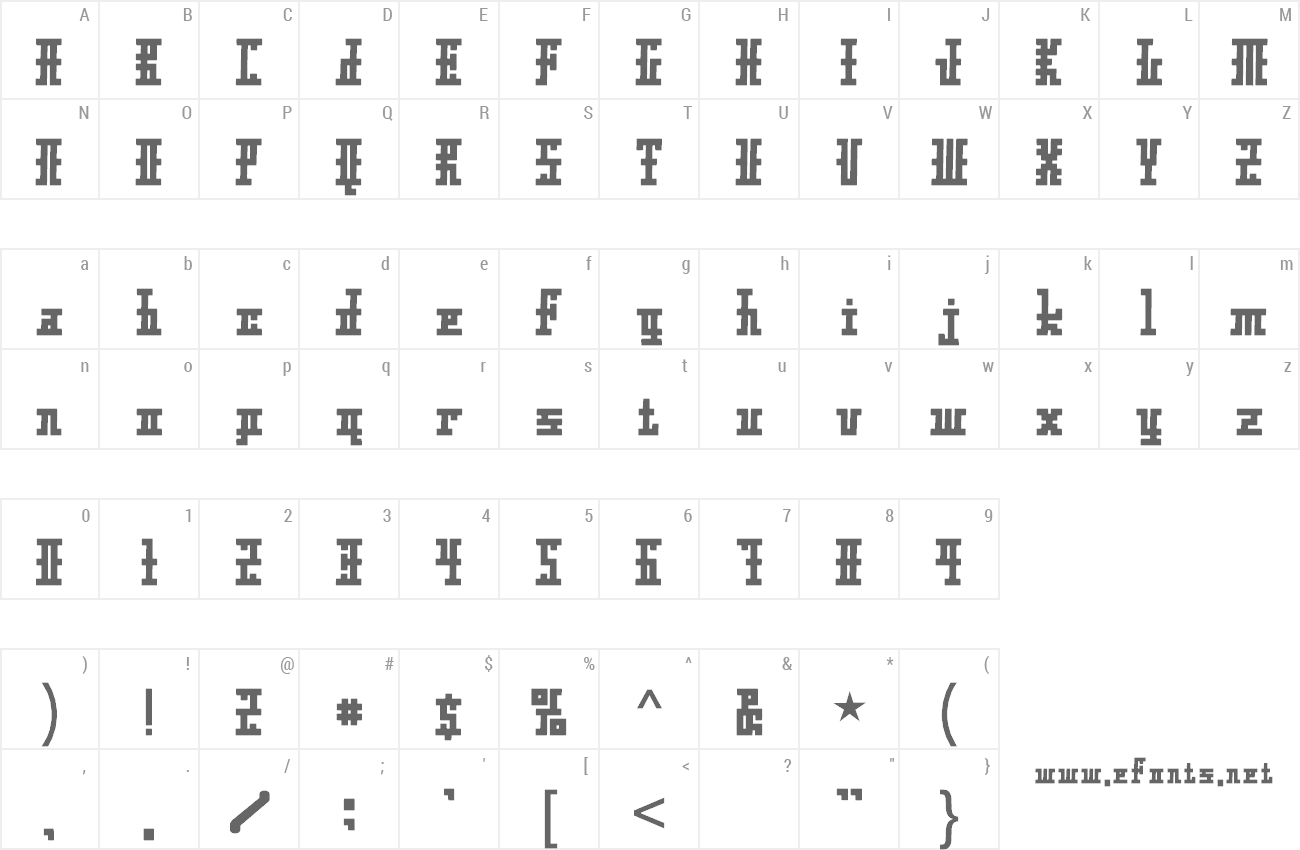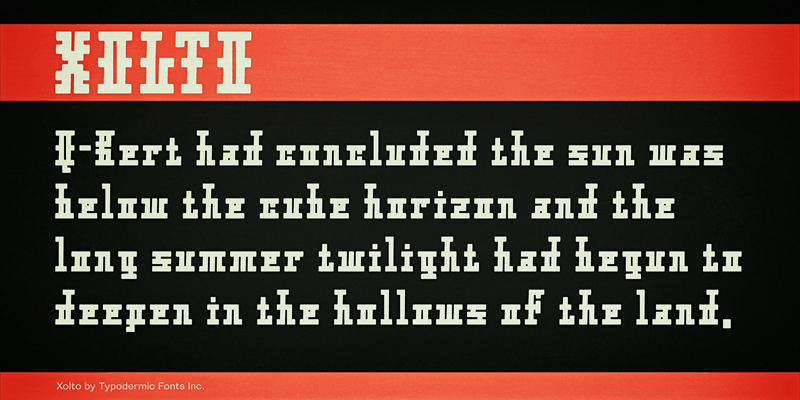
Preview and download Xolto Font. Created by Typodermic Fonts in Fancy Various styles with 100% Free license.
Xolto was designed to be used for eviction notices. This font includes a license that allows free commercial use: sometimes referred to as a desktop license. This allows you to install the font on a computer and use it to create posters, web graphics, game graphics, t-shirts, videos, signs, logos and more. Read the license agreement for details. If you'd like to embed this font in an app, ebook, on the web or anything that's not covered by the desktop license agreement, visit the link below. You'll find distributors who offer different types of licenses or you can contact me for help. http://typodermicfonts.com/xolto/ |